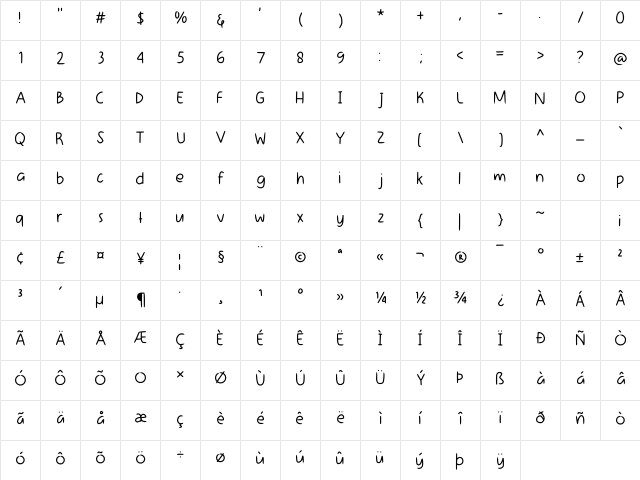
Battle Of Kings Regular
| Designer | Nur Aisyah Amalia |
Design Context for Battle Of Kings Typeface
Battle Of Kings is a composed and adaptable typeface that performs quietly and consistently across a wide range of design contexts.
Pro Tip: Use Battle Of Kings in both headline and body roles to test its range before committing to a single application.